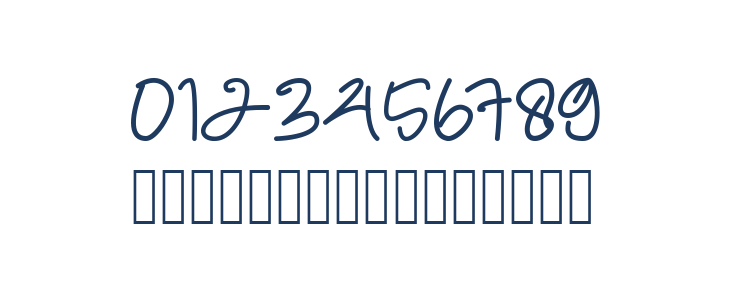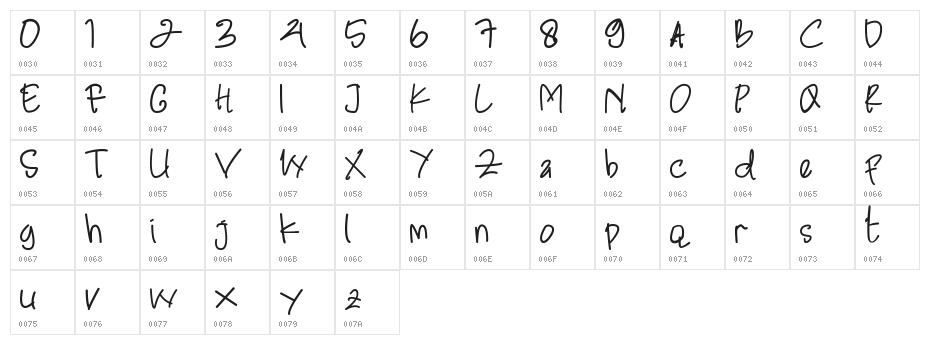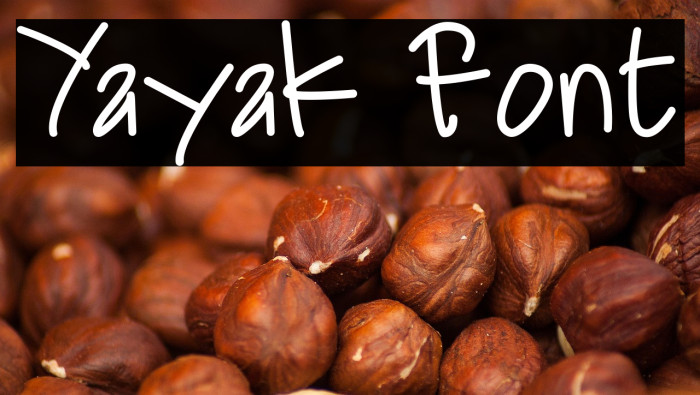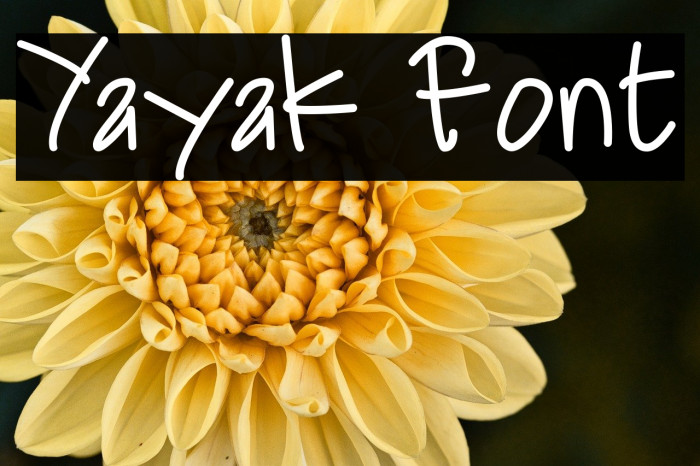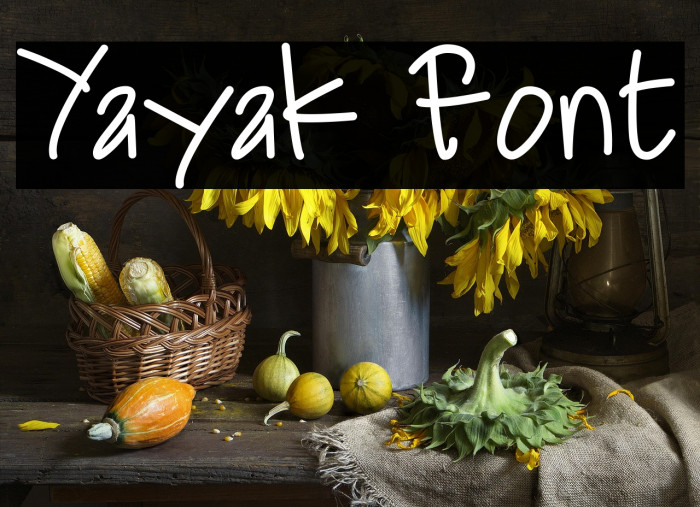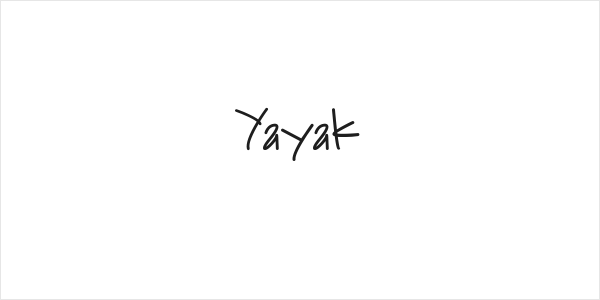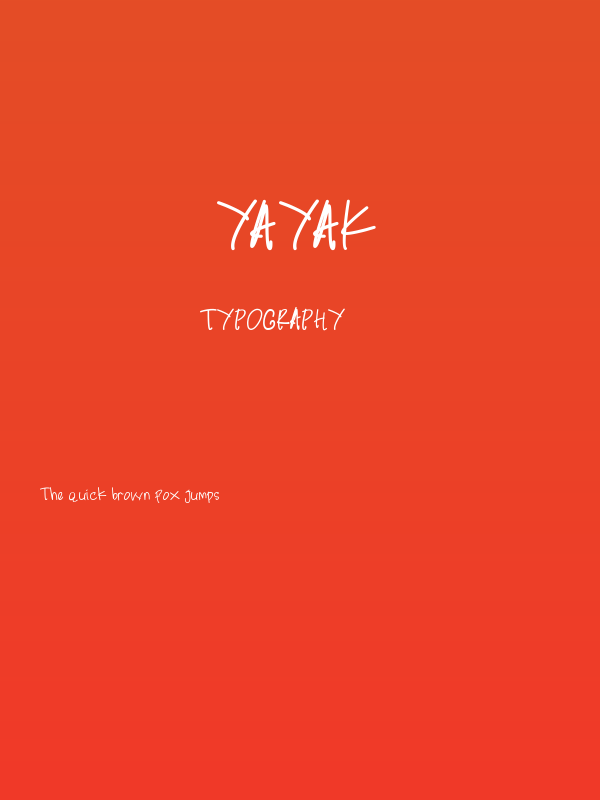
Yayak Font
Yayak Description
This font exhibits a playful and casual handwritten style, characterized by its loose, flowing strokes and slightly irregular letterforms. The uppercase and lowercase letters maintain a consistent rhythm, with rounded edges and a friendly appearance. The numerals are bold and clear, matching the overall informal aesthetic. Special characters are integrated seamlessly, adding to the font's versatility. Its informal nature makes it ideal for projects that require a personal touch or a relaxed vibe.
| Use Case | Headlines, Informal text, Personal projects |
| Proposed Projects | Ideal for greeting cards, children's books, personal blogs, and informal branding. |